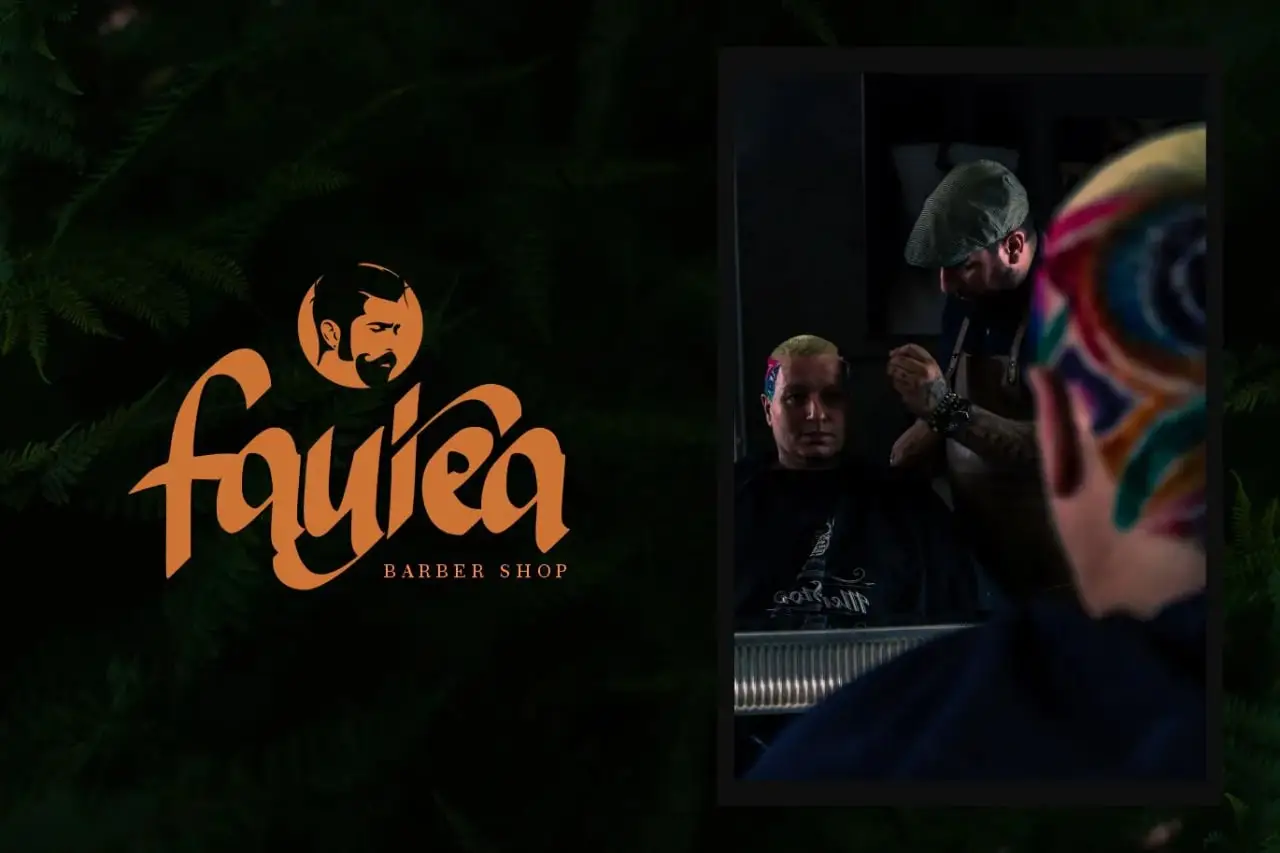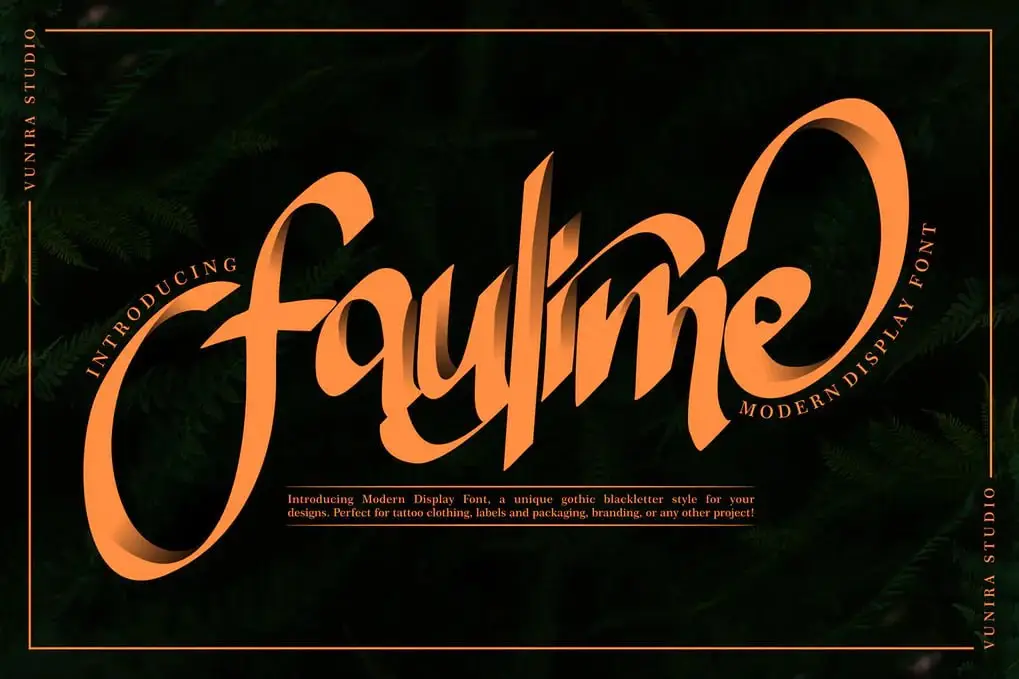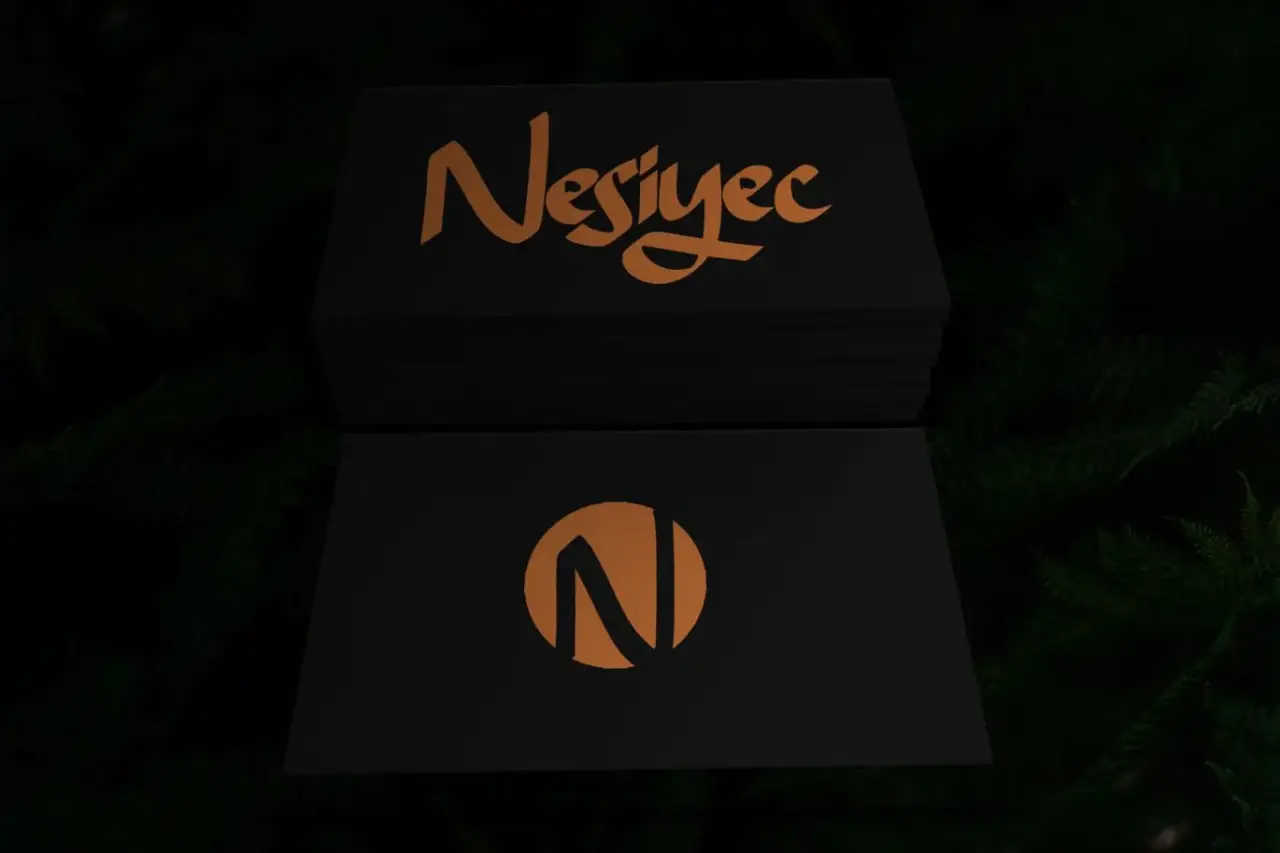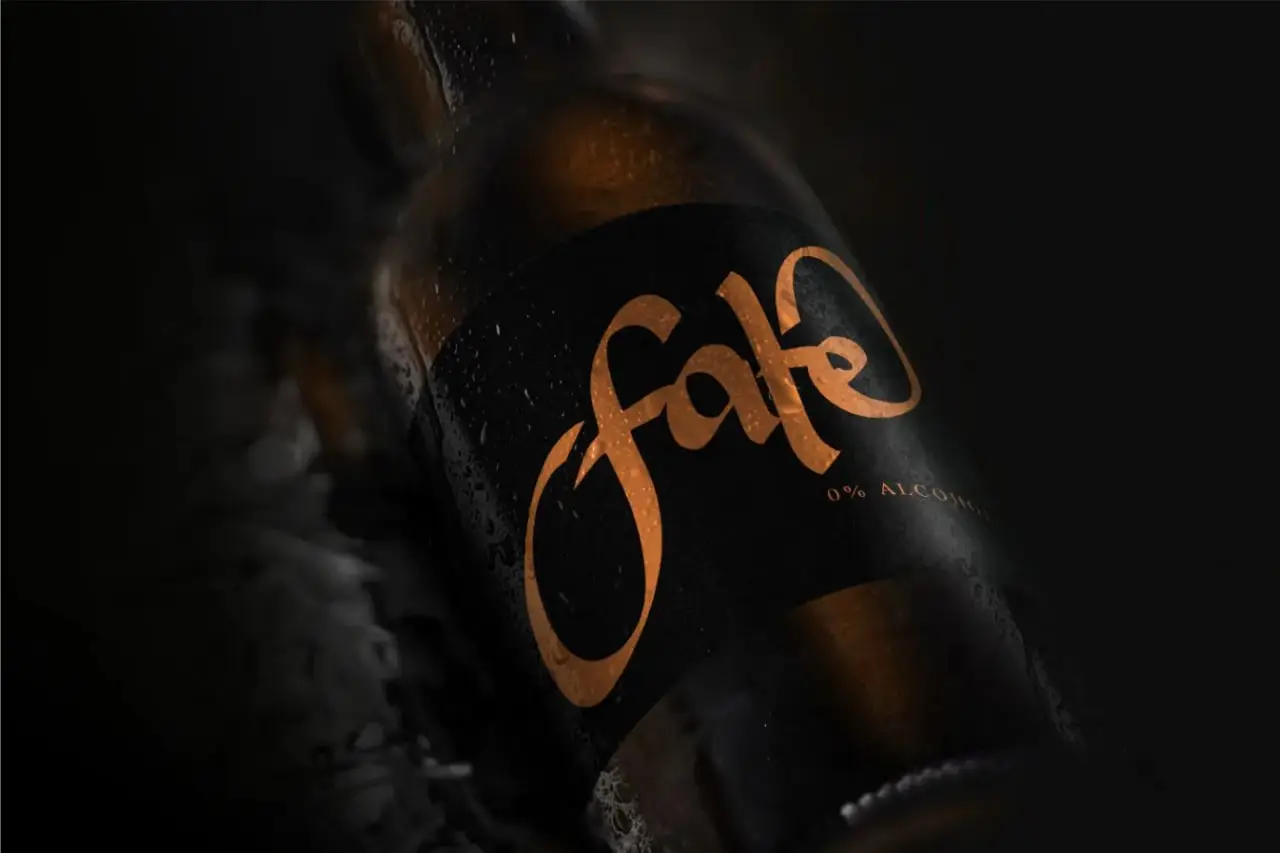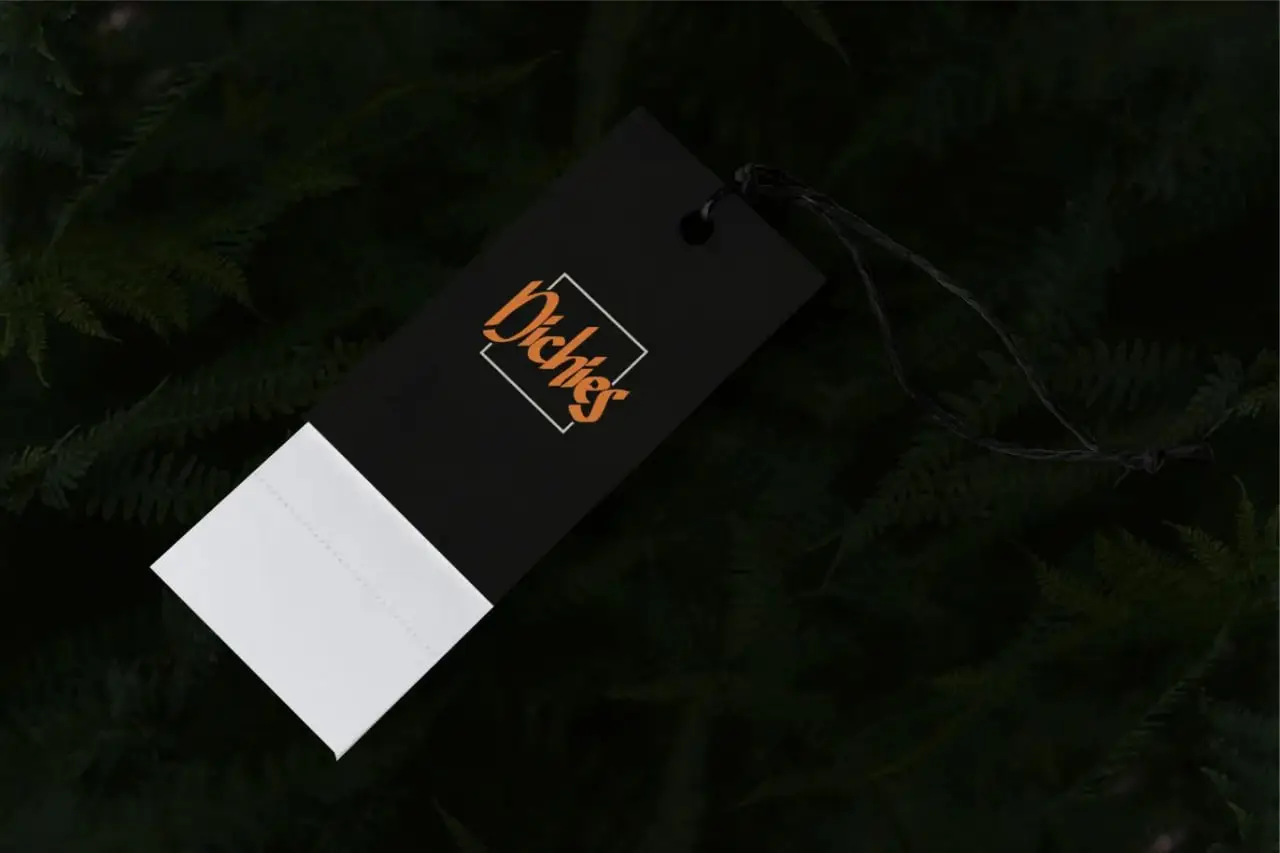
Vunira-Faulime Modern Display Font
The Vunira-Faulime Modern Display Font is a striking typeface designed to make your projects stand out. With its unique blend of elegance and modernity, this font is perfect for a variety of applications, including branding, logos, web design, and print materials.
• Ideal for eye-catching headlines and titles.
• Use in branding materials to create a memorable identity.
• Perfect for web use to enhance user engagement.